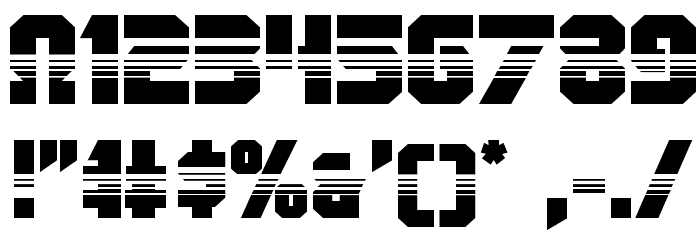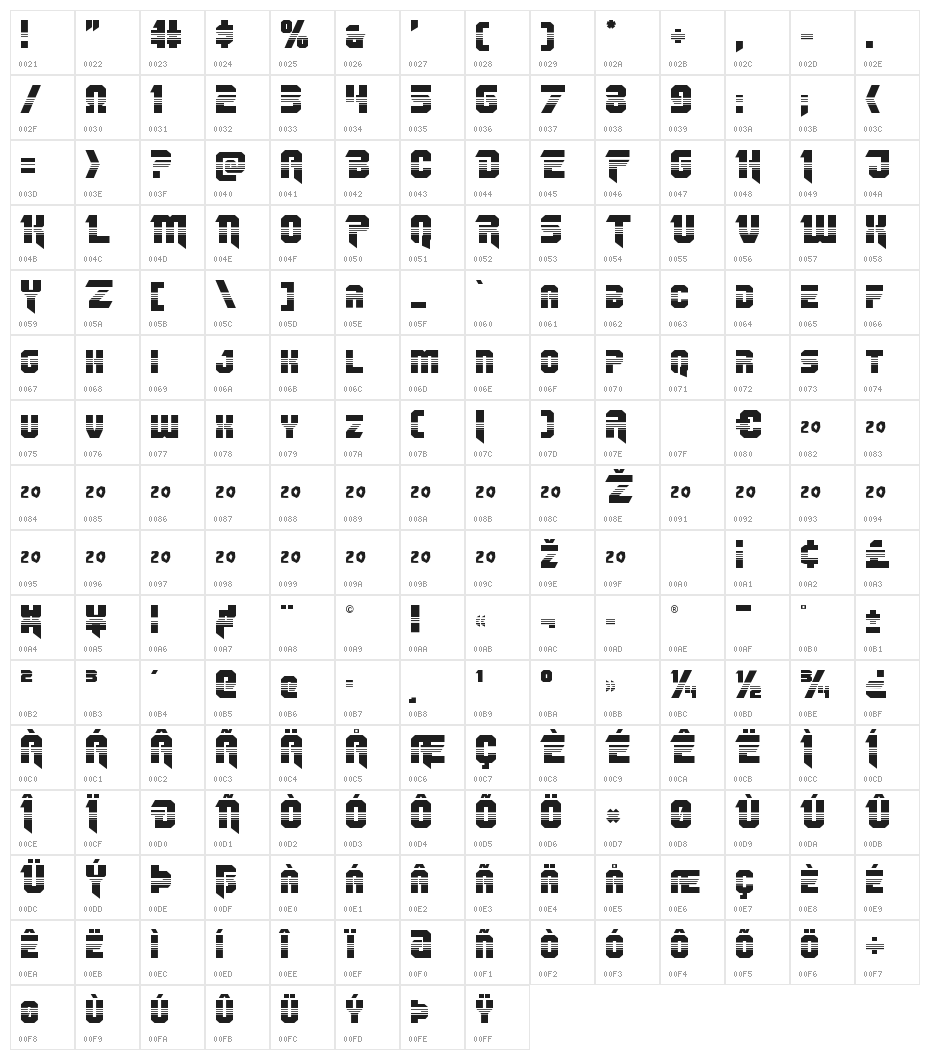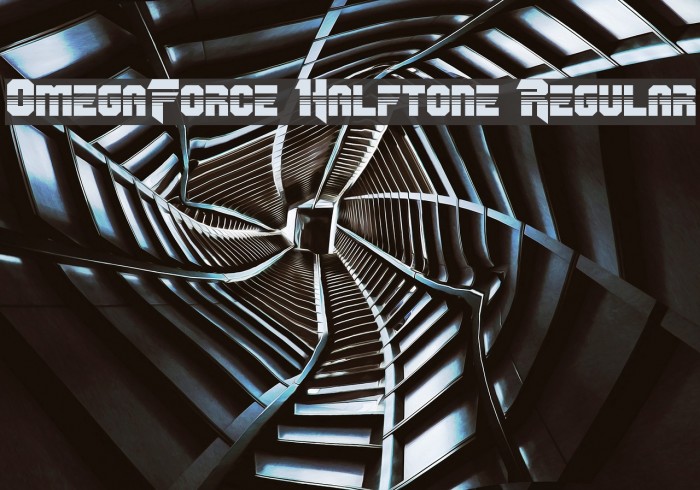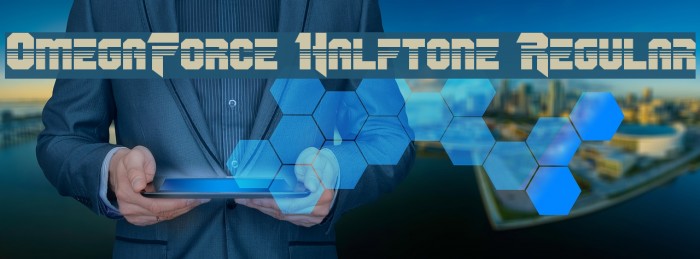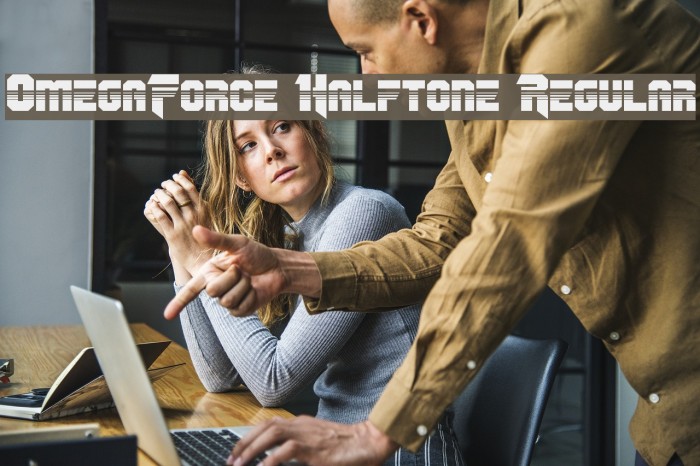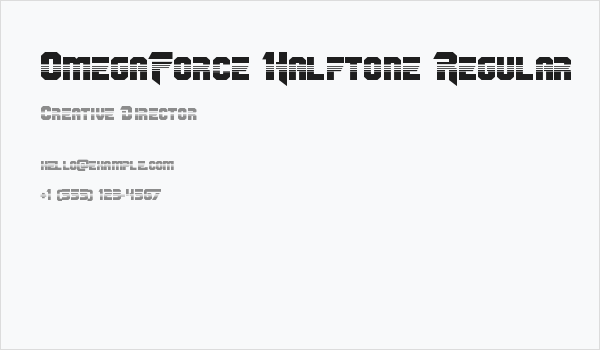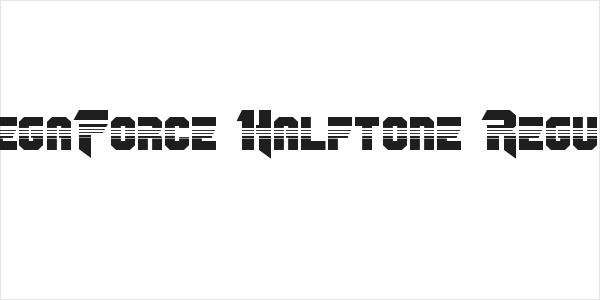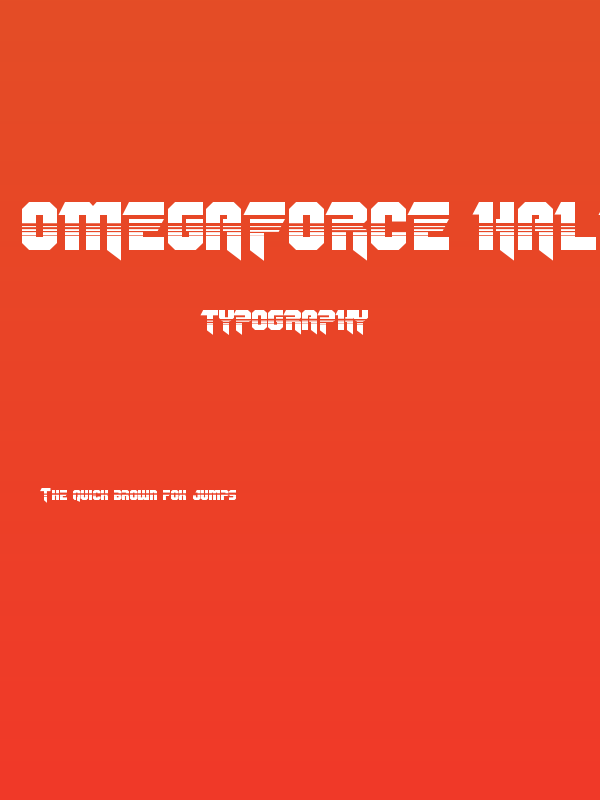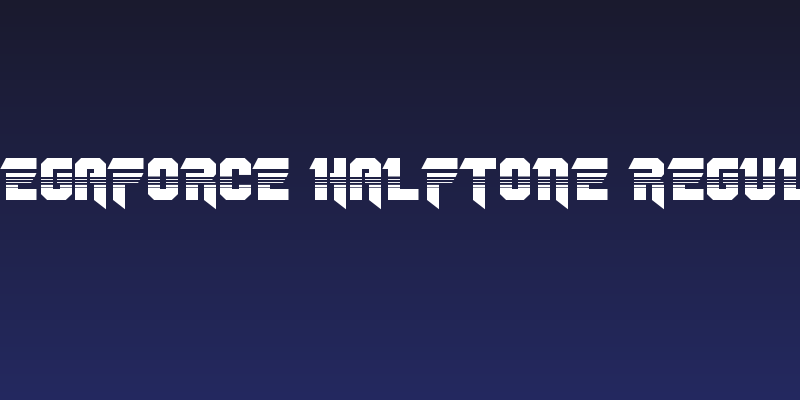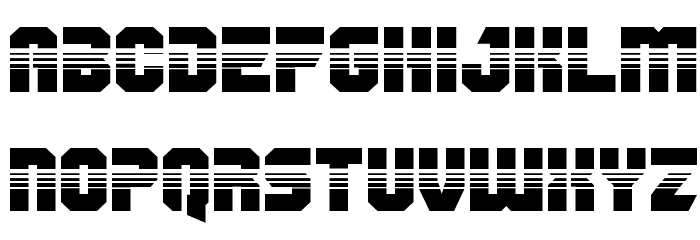
OmegaForce Halftone Regular Font
OmegaForce Halftone Regular Description
This font features a bold, futuristic design with a distinctive halftone effect that creates a sense of movement and depth. The characters are blocky and geometric, with sharp angles and a consistent horizontal stripe pattern running through each letter and number. This design choice gives the font a unique, digital aesthetic that is both eye-catching and modern. The uppercase and lowercase letters maintain a uniform style, ensuring consistency across different text applications. The numbers and special characters follow the same design principles, making them easily recognizable and visually cohesive with the rest of the font.
| Proposed Projects | Ideal for sci-fi themed projects, video game titles, tech branding, and digital artwork. |